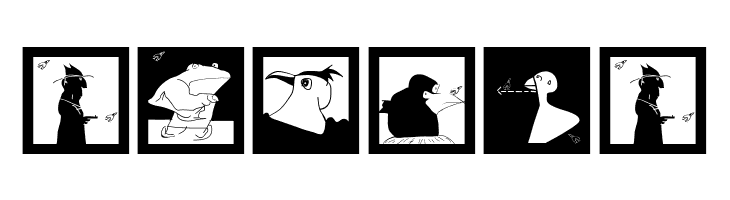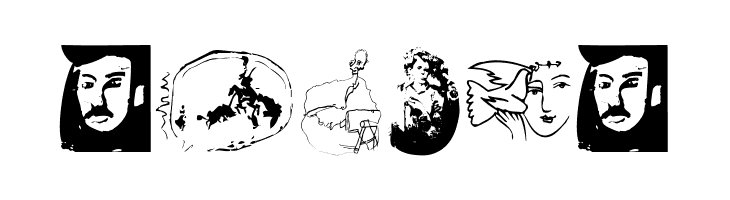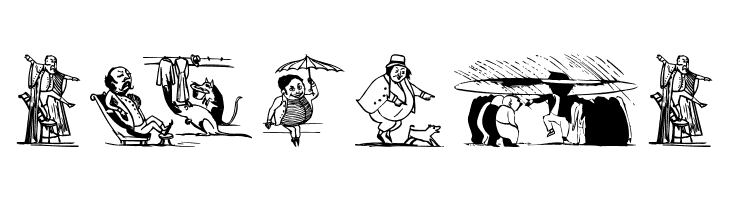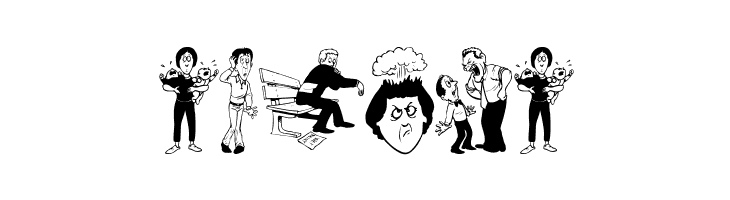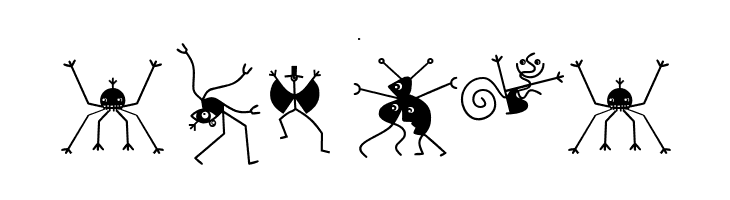
Cartoonish dingbat font with illustrated characters and objects.
Cartoonish, illustrated font with bold outlines and playful character drawings.
A decorative, illustrated font featuring Futurama characters and scenes.
A decorative set of illustrated headshots used in place of letters and numbers.
A bold decorative font using illustrated faces as characters.
A decorative font using illustrated caricatures as glyphs.
A whimsical decorative font with illustrated characters accompanying each letter.
Decorative illustrated portraits of American presidents with nameplates.
A bold, playful font with illustrated trash cans for an eco-friendly theme.
A decorative caricature face font with playful, illustrated characters.
A decorative font featuring illustrated human profiles for each character.
Highly decorative font made of illustrated mask icons.
A display font using illustrated portraits for each character.
A decorative dingbat font featuring illustrated woman faces in multiple styles.
A display font using illustrated hands making an obscene gesture for each character.
Hand-drawn, quirky illustrated faces with bold lines and playful expressions.
A decorative font with illustrated bearded faces as characters.
A display font made of illustrated house and building silhouettes.
Cartoonish, illustrated font with character-based glyphs.
Hand-drawn dingbat font with garage sale item illustrations.
Animal silhouette icons form each character in a bold, decorative style.
A decorative, dance-themed font with illustrated dancer figures as characters.